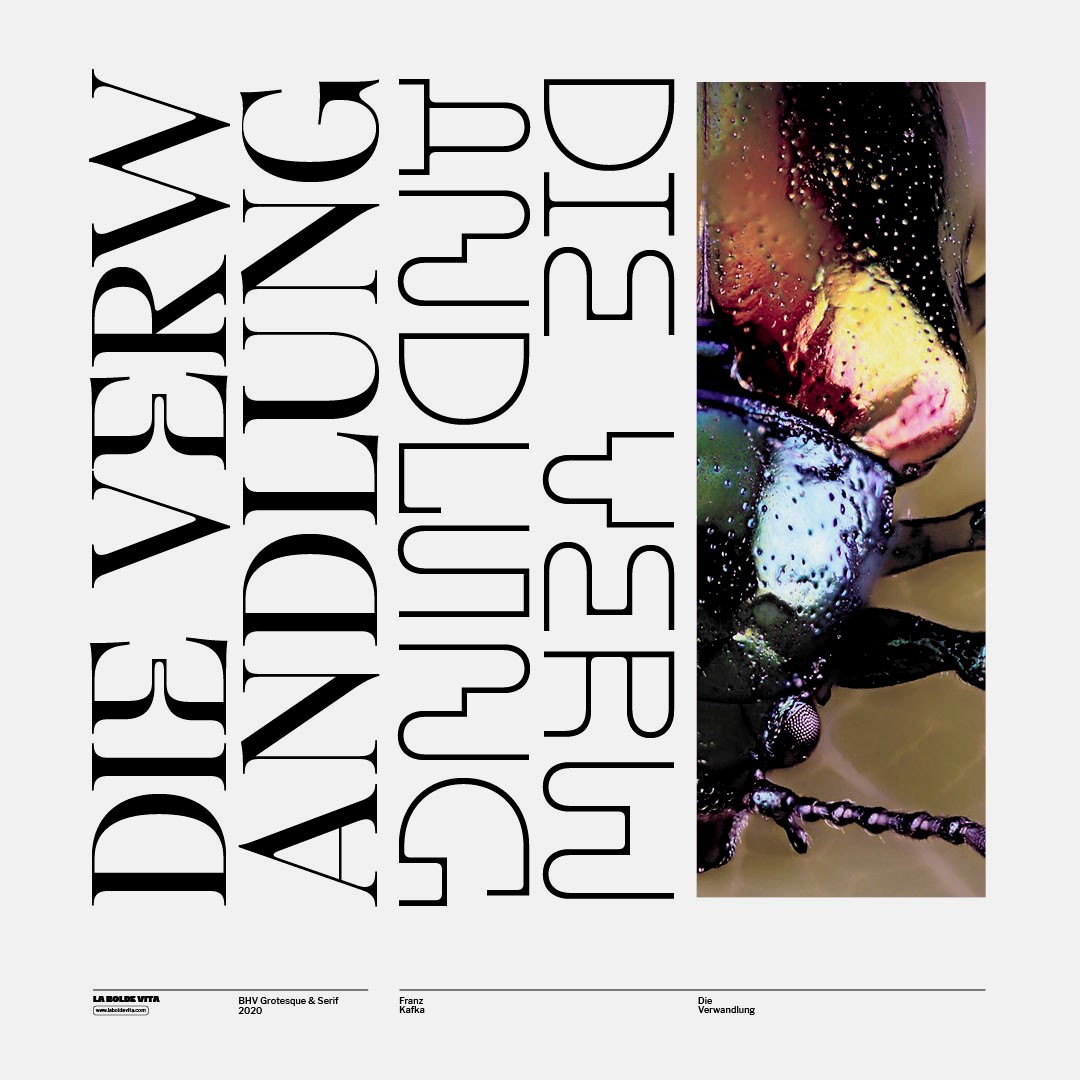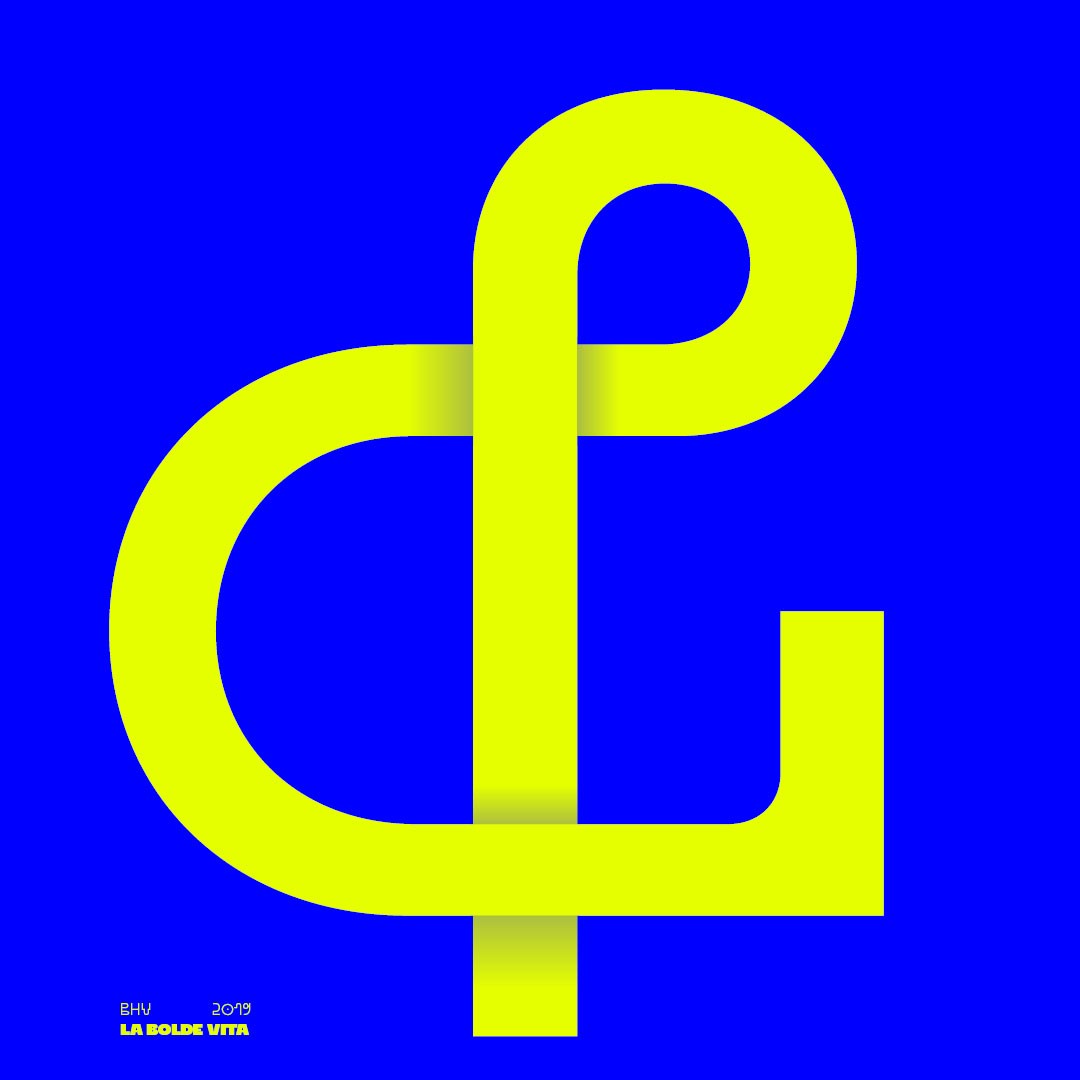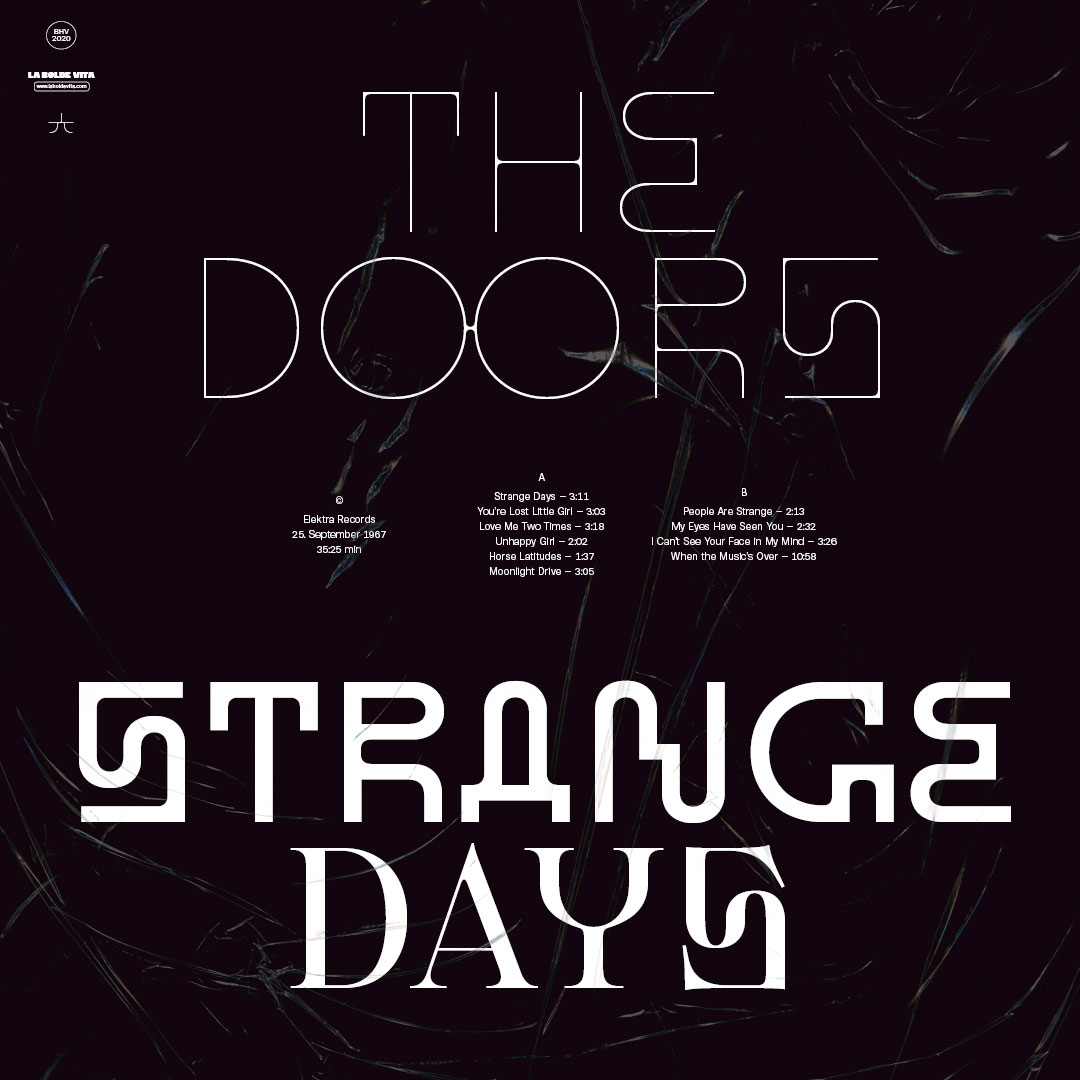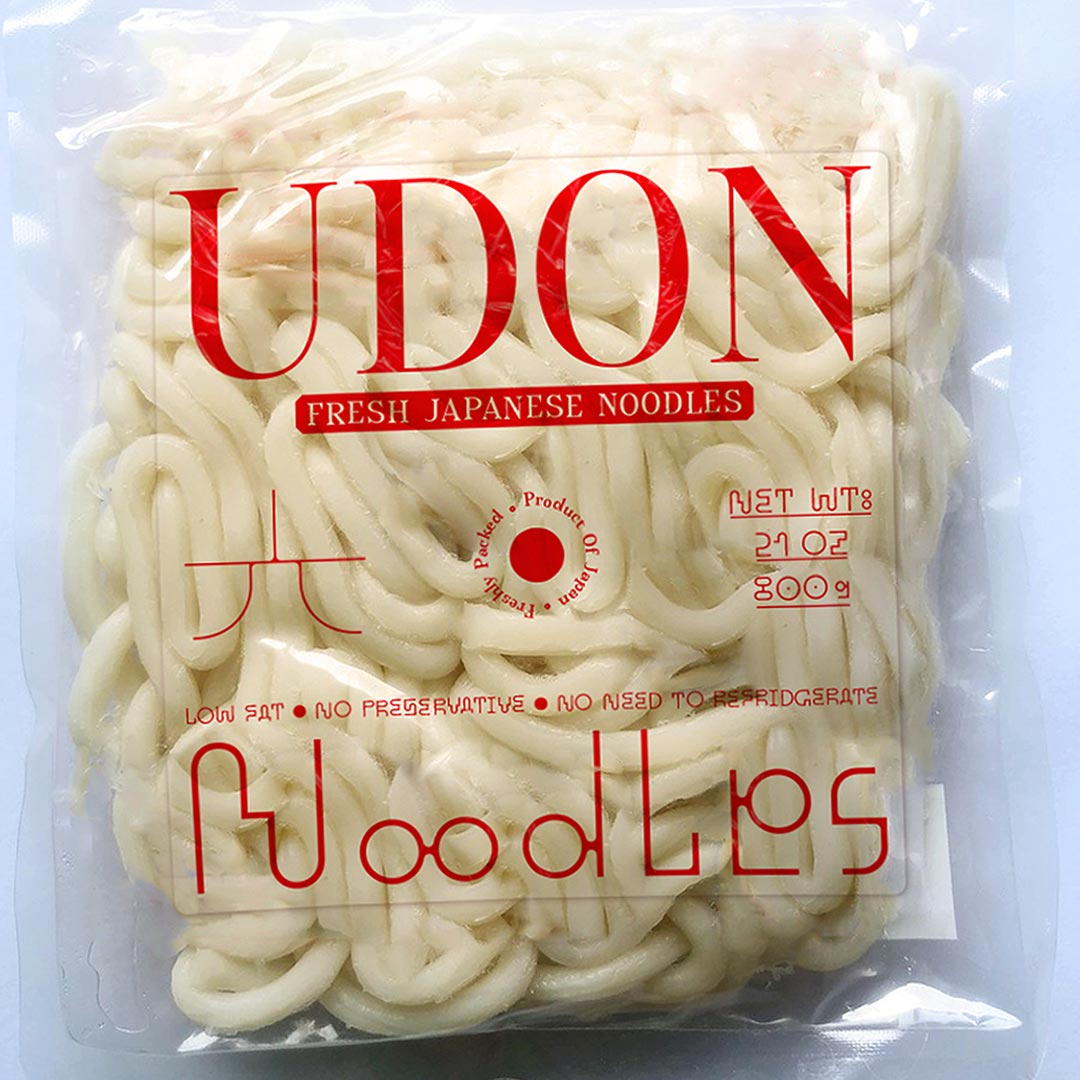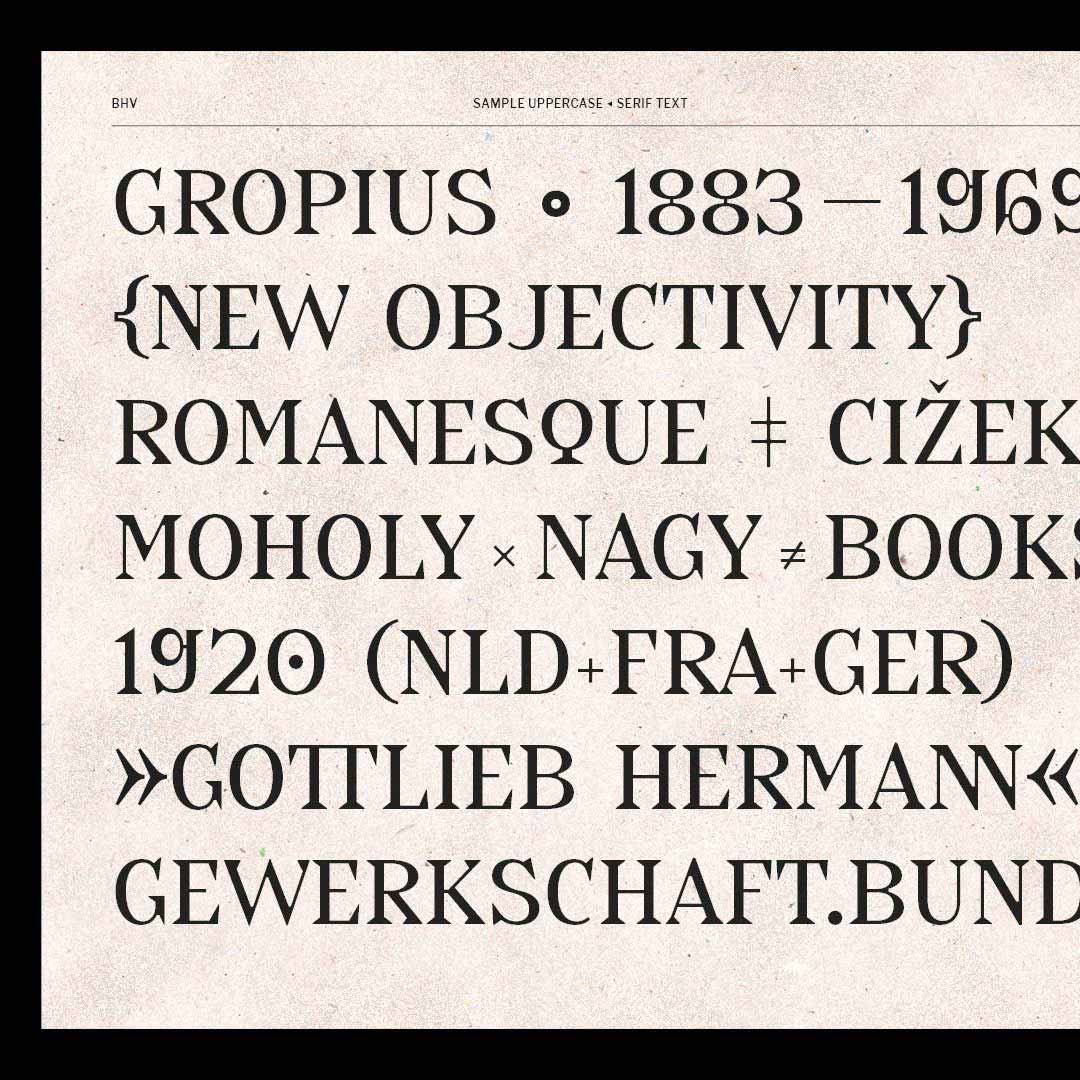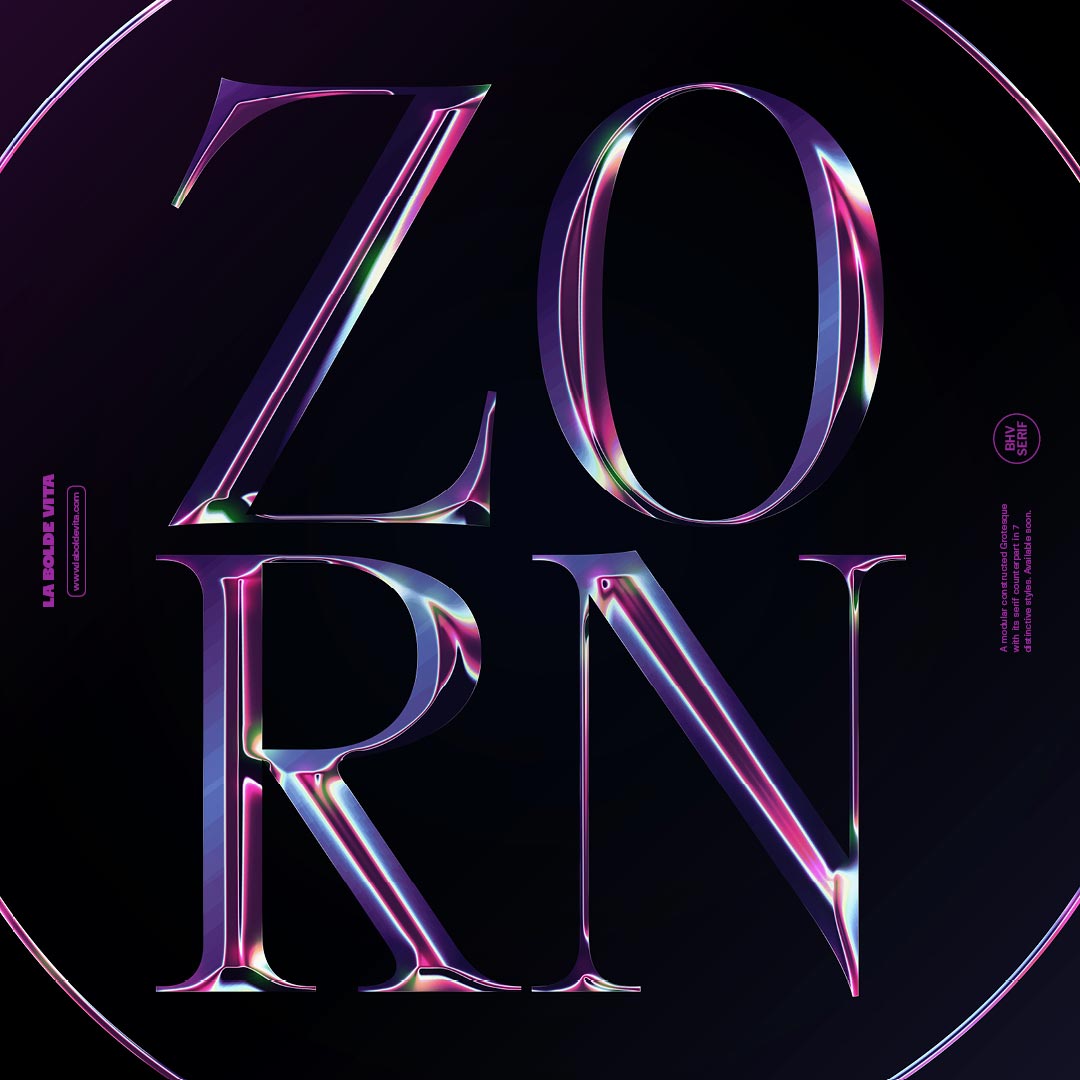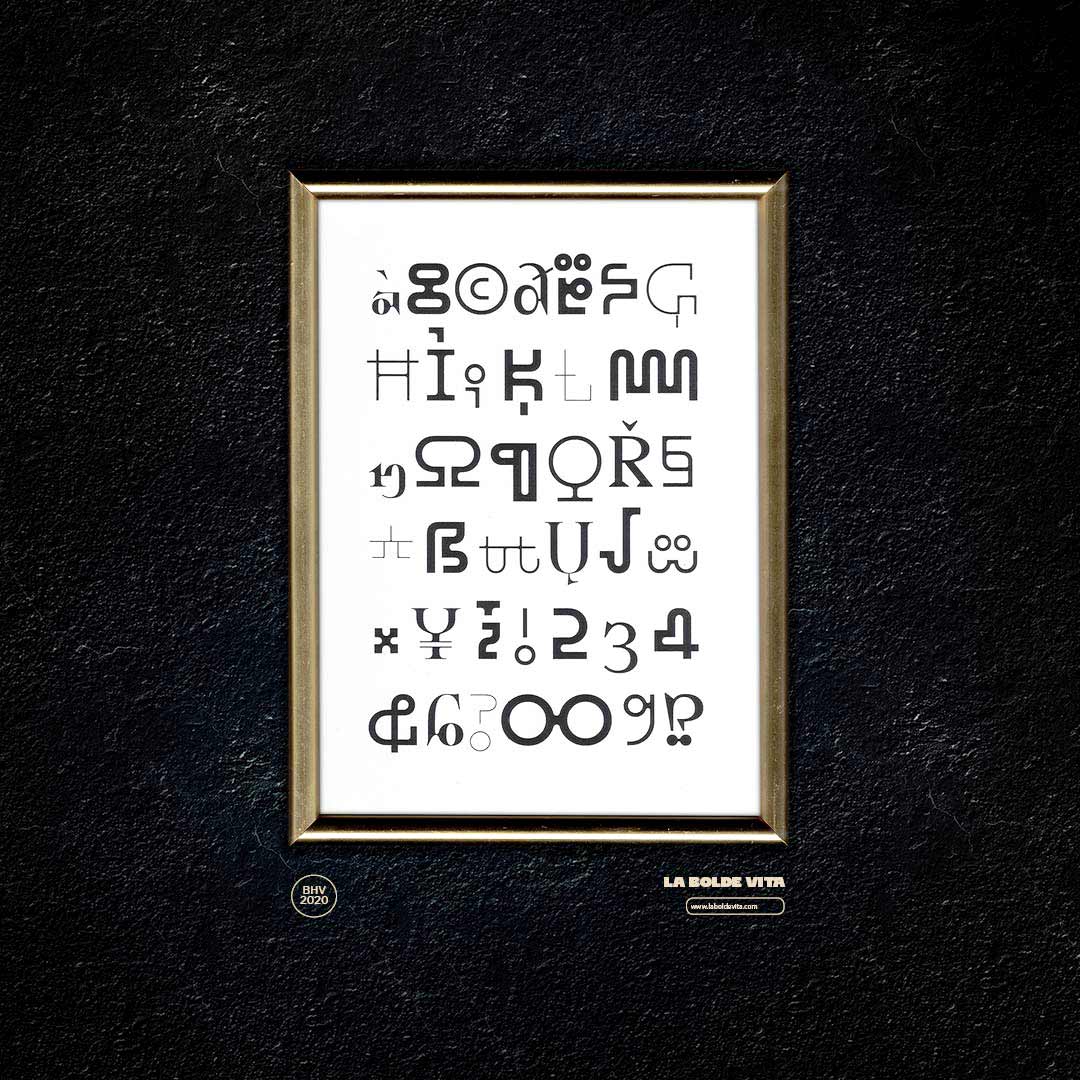
The BHV family is a rather unconventional coalition, containing various weights of a monolinear grotesque and a corresponding serif in text and display styles. They all share a common grid-based skeleton resulting in some odd letter shapes with emphasized links.
While the serif styles follow a more traditional approach and try to fulfill at least some legibility conventions, the grotesque almost always creates pattern-like lines. Because of the unfixed x-height, texts set in lowercase and uppercase differ drastically in terms of texture.
BHV will always stick out cause of its oddities; use it big and in certain spots where you want to have the focus on. Take advantage of the ligatures and alternates for maximum stylistic effect. Combine it with a neutral typeface to highlight single letters or words in identities and layouts. Or just go crazy and use it like a pattern!
Modular Grotesque from Thin to Bold
Released in 2020
Serif in Display and Text
461 Glyphs (Grotesque)
551 Glyphs (Serif)
BHV Grotesque
BHV Serif
The monolinear styles of BHV come with some decorative ligatures and case sensitive forms. Its serif counterpart puts some more ligatures on top, plus providing some alternates and oldstyle figures.
BHV comes with 461 glyphs for the monolinear Grotesque styles and 551 glyphs for both Serif styles — both covering the Latin Extended-A Unicode range and providing fancy ligatures. The Serif styles come with some additional alternate letters to control oddity and legibility.
Thanks to the coverage of the Latin-Extended-A Unicode range, the BHV family supports most modern Latin languages. Actually, containing some additional accented glyphs, you can set text in 215 languages. If you still think your language isn't supported, you can look up the full list below or in the specimen.